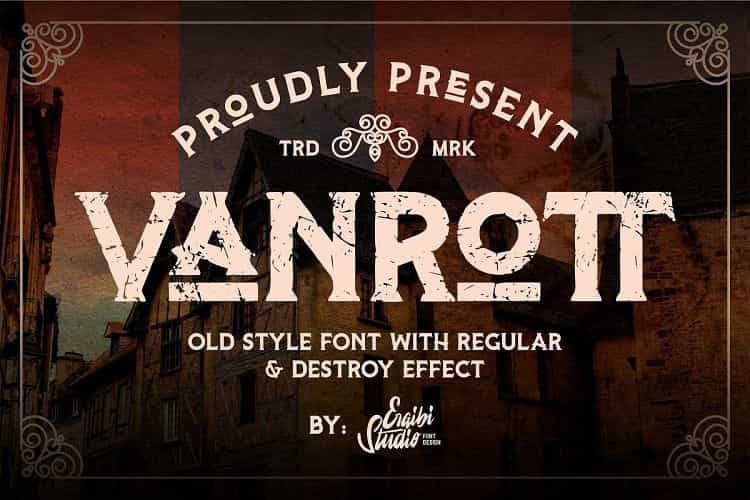
Vanrott is a very old font with two regular choices and it gets destroyed in bold, prominent, old-fashioned but modern look! great for those of you who are looking for fonts for titles, logos, clothing, invitations, branding and packaging.